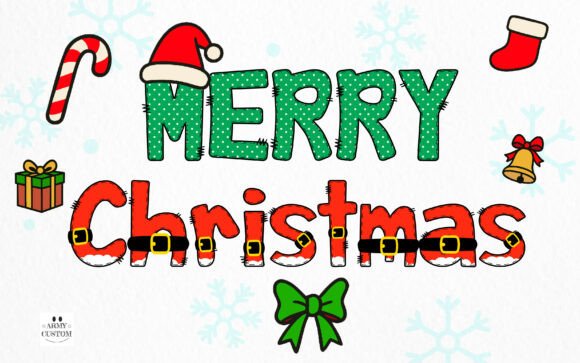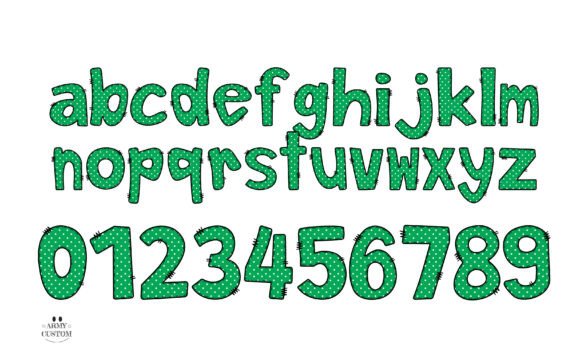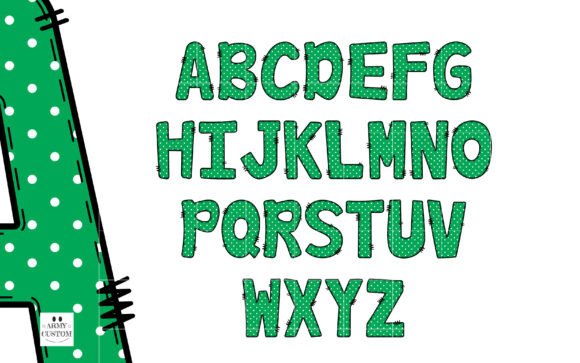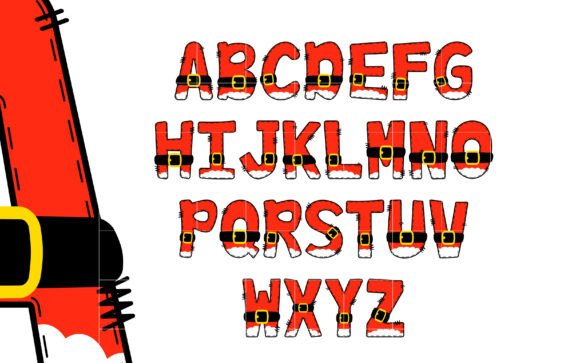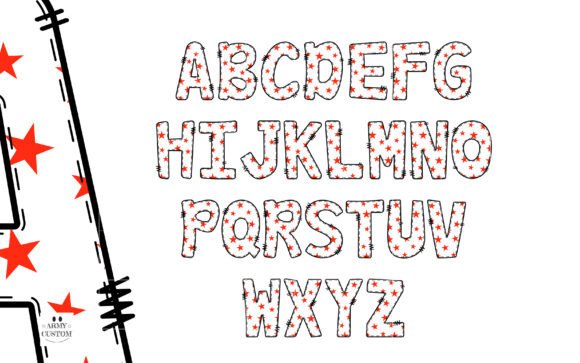
Introducing the Christmas Bundle Font: A Whimsical Addition to Your Holiday Design Toolkit
Are you looking for a playful and festive font to add some holiday cheer to your design projects? Look no further than the Christmas Bundle Font! This delightful color font is imbued with a sense of whimsy, making it the perfect choice for creating vibrant holiday decorations or adding a dash of merriment to any design project.
A Font that’s Full of Holiday Cheer
The Christmas Bundle Font is a jovial and charming font that’s inspired by the adorable antics of Santa’s helpers. Its elfish style makes it an ideal choice for designers and crafters who want to add a touch of magic to their holiday designs. With this font, every letter spelled out becomes a joyous celebration, perfect for getting into the holiday spirit.
One of the best things about the Christmas Bundle Font is its compatibility with various design tools. The black version of this color font is compatible with Cricut Design Space and other cutting machines, making it easy to use for crafters and designers who work with cutting machines. This font is also perfect for use in digital designs, such as holiday cards, social media graphics, and more.
Four Festive Patterns to Choose From
The Christmas Bundle Font comes with four styled patterns to add some extra festivity to your designs. These patterns include:
- Red Santa Suit Pattern: The letter is filled in solid red with white fluffy edges at the bottom and black belt detail across the middle, resembling Santa’s outfit.
- Green Polka Dots Pattern: The letter is covered in a bright green background with evenly spaced white polka dots, giving a festive wrapping-paper feel.
- White with Red Stars Pattern: The letter has a white base with red stars scattered across it, creating a magical and whimsical feel.
Using the Christmas Bundle Font in Your Designs
The Christmas Bundle Font is incredibly versatile and can be used in a variety of design projects. Here are a few ideas to get you started:
- Holiday Cards and Invitations: Use the Christmas Bundle Font to create festive holiday cards and invitations that are sure to impress your friends and family.
- Social Media Graphics: Add some holiday cheer to your social media graphics with the Christmas Bundle Font. Create festive Facebook posts, Twitter headers, and Instagram stories that are sure to get you in the holiday spirit.
- Holiday Decorations: Use the Christmas Bundle Font to create vibrant holiday decorations, such as garlands, banners, and signs.
- Cricut Projects: The Christmas Bundle Font is perfect for use in Cricut projects, such as vinyl decals, iron-on designs, and paper crafts.
Tips and Tricks for Getting the Most Out of the Christmas Bundle Font
Here are a few tips and tricks for getting the most out of the Christmas Bundle Font:
- Experiment with Different Patterns: Try out different patterns and combinations to see what works best for your design.
- Use it with Other Holiday Fonts: Pair the Christmas Bundle Font with other holiday fonts to create a unique and festive look.
- Add Some Holiday Cheer to Your Designs: Don’t be afraid to get creative and add some holiday cheer to your designs with the Christmas Bundle Font.